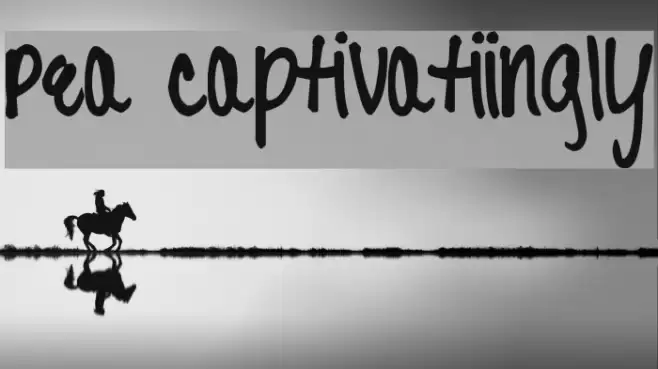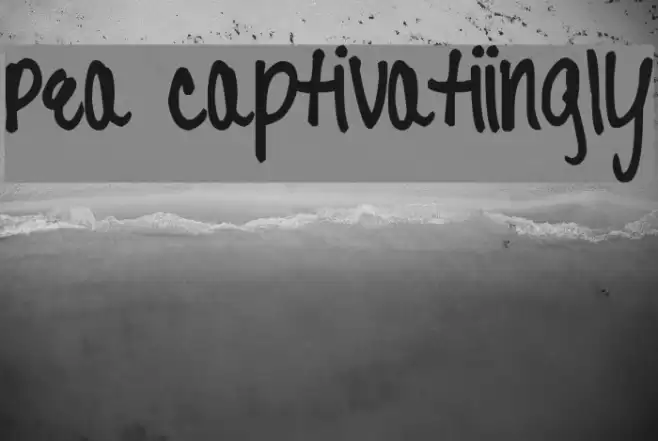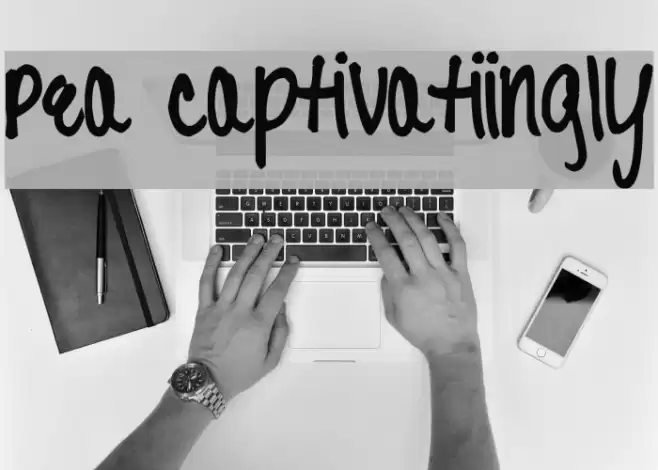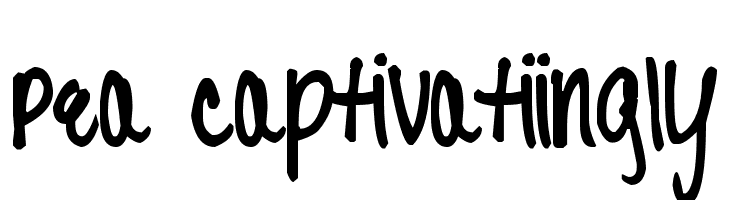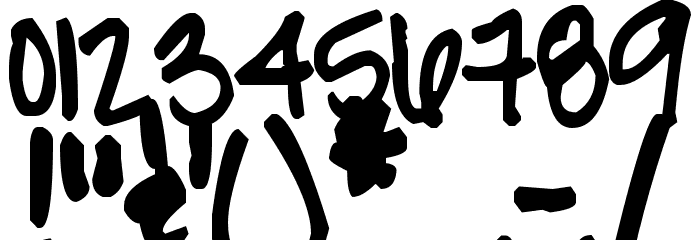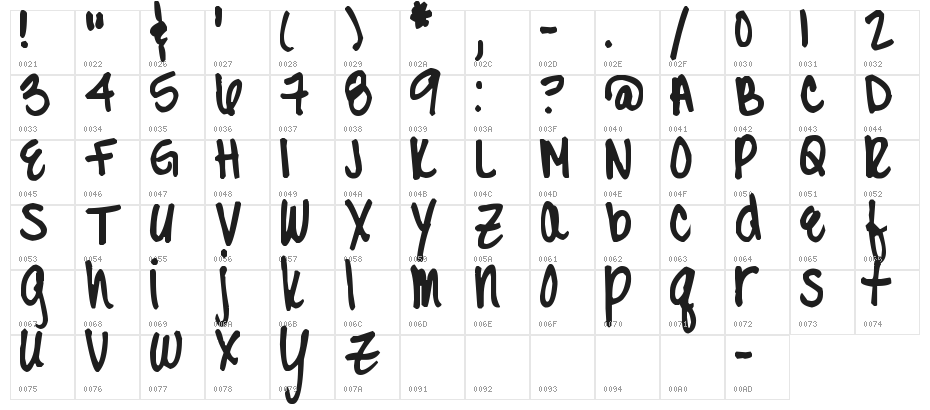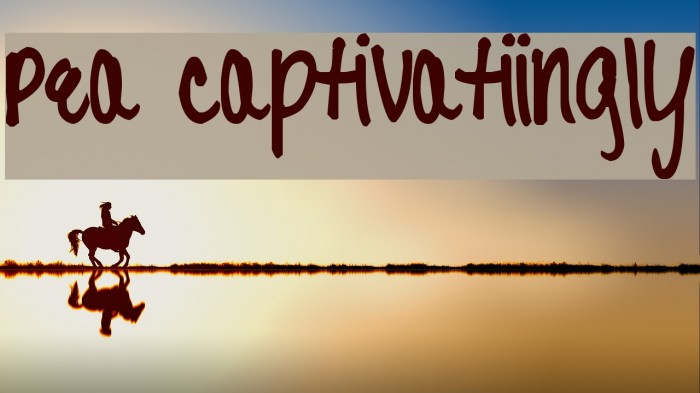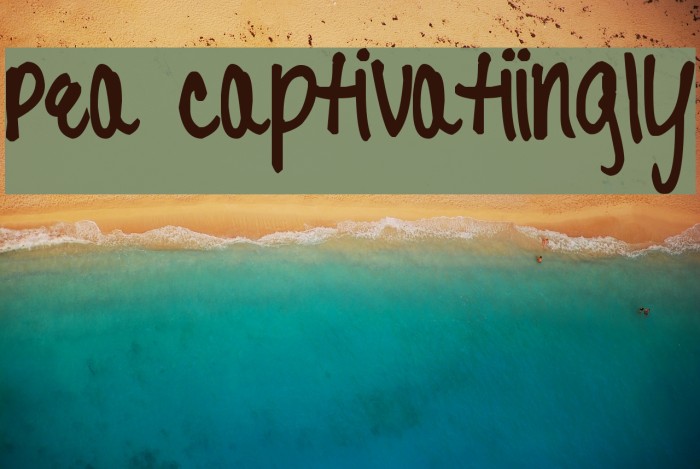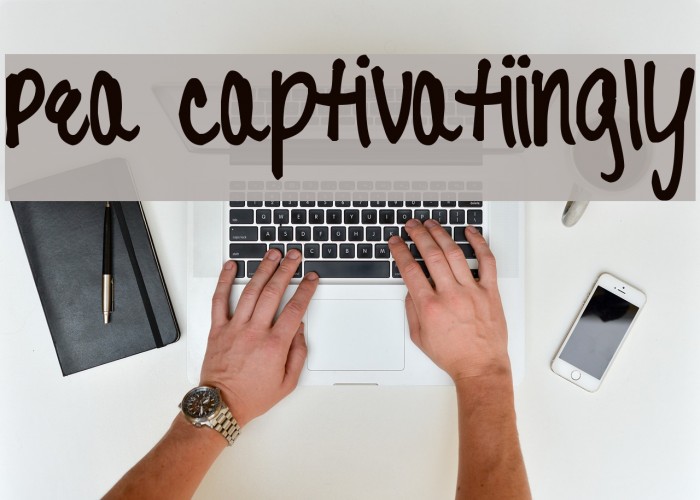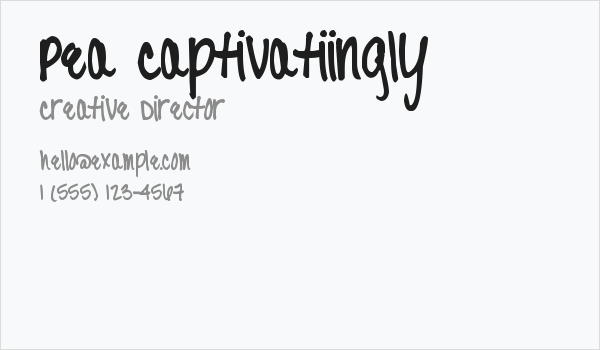
Pea Captivatiingly Font
Pea Captivatiingly Description
This font exudes a playful and casual vibe, characterized by its handwritten style with bold, rounded strokes. The letters are slightly irregular, adding a personal and informal touch. The uppercase and lowercase characters maintain a consistent style, with a noticeable slant that enhances its dynamic appearance. The numbers and special characters are equally expressive, fitting seamlessly with the overall aesthetic. This font is ideal for projects that require a friendly and approachable feel, such as children's books, personal blogs, or creative branding.
A playful, handwritten font with bold, rounded strokes and a casual vibe from Uncategorized fonts.
- Proposed Projects: Children's books, personal blogs, creative branding, informal invitations.
- Overall Style: Casual, Playful
- Use Case: Headlines, Logos, Informal Text